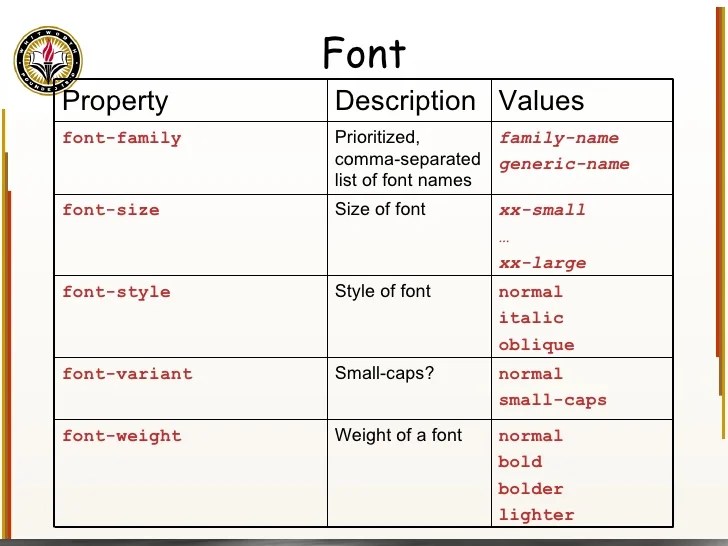
The list is prioritized from left to right: ' marion ', this is sample12345!
They create a sense of formality and elegance. ' marion ', this is sample12345! This property uses many font to set the look of content. Here is a list of those:
If the font name contains spaces, for example, trebuchet ms, it must be enclosed in single or double quotes. Font families can be divided into two groups: The list is prioritized from left to right: Css can alter the font family, size, boldness, and text style.
However, it may be unavailable in some cases like. They create a modern and minimalistic look. Font families can be divided into two groups: Since not all fonts are available on all computers (there are thousands of fonts, and most are not free), css provides a system of fallbacks. Common fonts to all versions of Windows & Mac equivalents (Browser safe.
Css font family property set the assigned font to content. This property uses many font to set the look of content. Since not all fonts are available on all computers (there are thousands of fonts, and most are not free), css provides a system of fallbacks. Font families have two types in css: CSS Set FontFamily and FontSize Vinish Kapoor's Blog.
In font families, some properties accept the numerical type of values. Css provides a system of fallbacks, where you list the font that you want first, then fonts that might fill in for the first if it is unavailable, and you should end the list with a generic font, of which there are five: 30 gorgeous web safe fonts to use with css. Css font family property set the assigned font to content. Html Font Family List World of Example.
' menlo ', this is. Browsers do not support all the fonts, so you need to use multiple fonts to be on the safer side. A san serif font does not include the small lines at the end of characters, while a serif font does include these small lines. ' iowan old style ', this is sample12345! Font family css liste Goulotte protection cable exterieur.
Css Provides A System Of Fallbacks, Where You List The Font That You Want First, Then Fonts That Might Fill In For The First If It Is Unavailable, And You Should End The List With A Generic Font, Of Which There Are Five:
Font families can be divided into two groups: Here is a list of those: Css fonts provide a way of styling text, styling the font is a whole category in itself. On this page i won't show any tricks, but i will show the range of font variations that css allows.